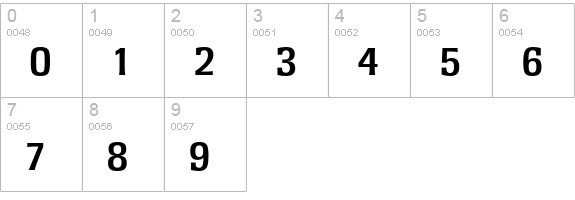
Rochester-DemiBold is a sub-bold, structured variant in the Rochester typeface family \xE2\x80\x94 well suited to sub-headlines and emphasised passages.
Rochester-DemiBold is a sophisticated and modern font that exudes elegance and professionalism. With its bold and eye-catching design, this font is perfect for making a statement in various design projects. The clean lines and sharp edges of Rochester-DemiBold give it a timeless appeal that is sure to leave a lasting impression. What's even better is that Rochester-DemiBold is available for free download at FontsMarket.com. So whether you're working on a logo, website, or any other creative project, you can easily access this stunning font without any hassle. Don't miss out on the opportunity to enhance your designs with the sleek and stylish Rochester-DemiBold font - download it for free today!